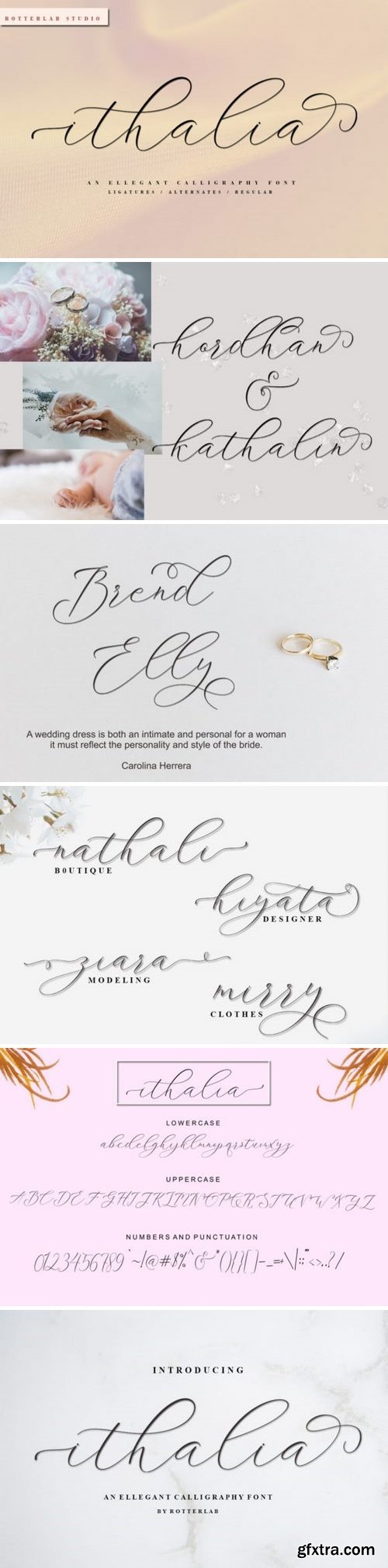
ithalia Script - a new fresh & modern script with a handmade calligraphy style, decorative characters and a dancing baseline! So beautiful on invitation like greeting cards, branding materials, business cards, quotes, posters, and more design concept!